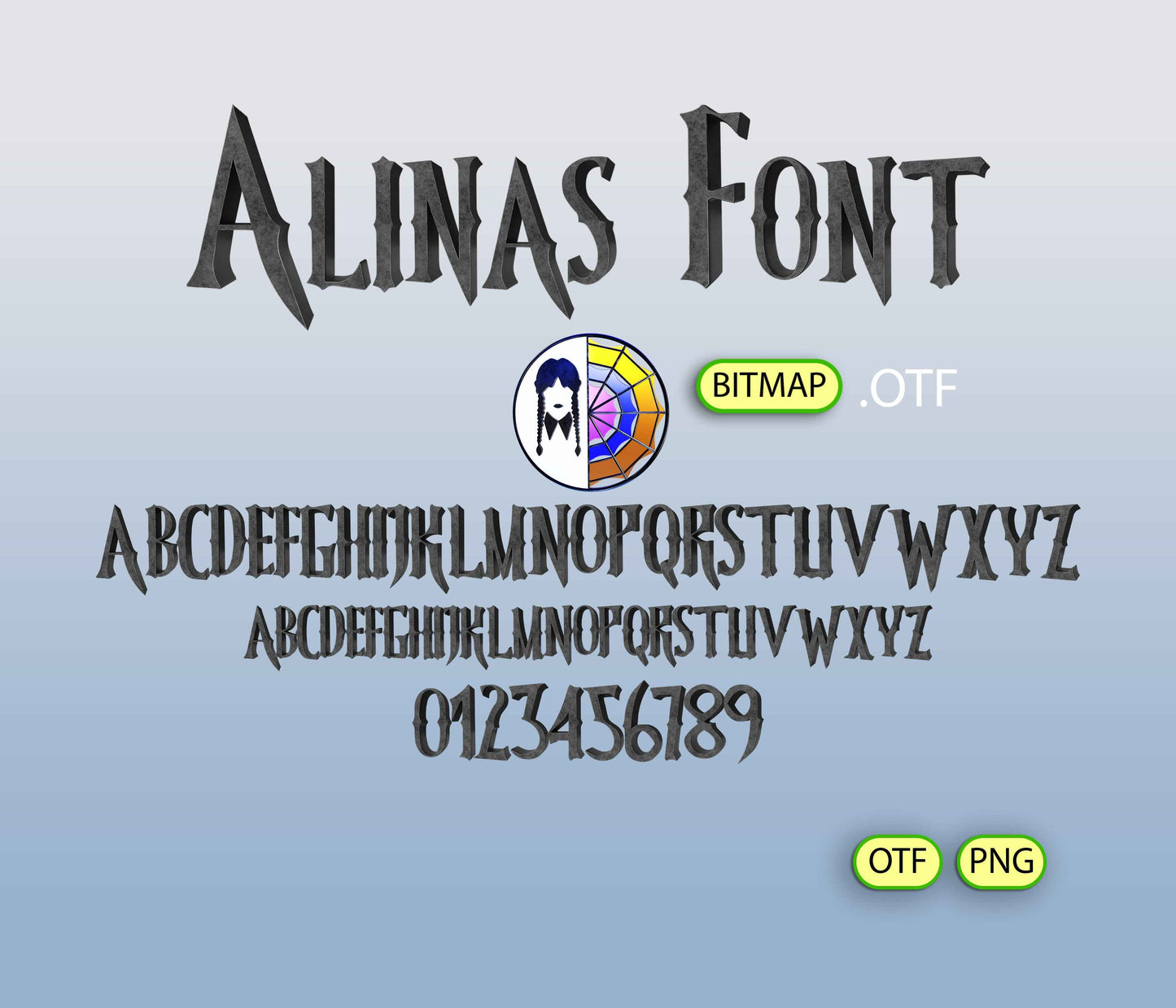
Gothic Family Font Textured
Embracing the Macabre Elegance of the Gothic Family
Step into the delightfully dark and whimsically gothic world of the Gothic Family with our latest font creation – the Gothic Family font. This font encapsulates the quintessential essence of Gothic Family, the iconic, braided hair, deadpan-faced character known for her sharp wit and darker-than-night humor. It's a typographical tribute to the classic TV show and movies that have etched the Gothic Family into the annals of pop culture, resonating with fans who adore their eerie charm and offbeat lifestyle.
This font is not just a typeface but a piece of art, meticulously handcrafted to mirror the enigmatic and haunting vibe of its namesake. The font features an extensive character set, transcending beyond basic alphabets to include numbers, special characters, and glyphs. This ensures it's a true replica, capturing the mysterious allure and Gothic architecture-inspired aesthetics of the Gothic Family mansion.